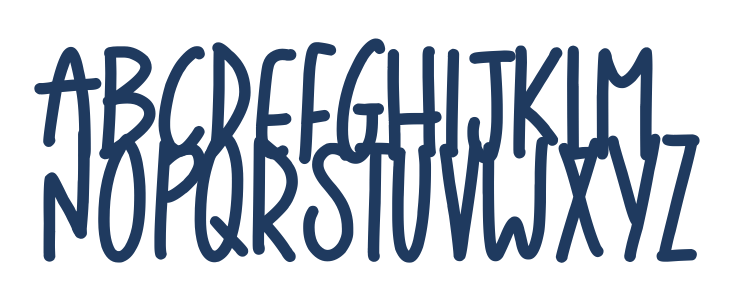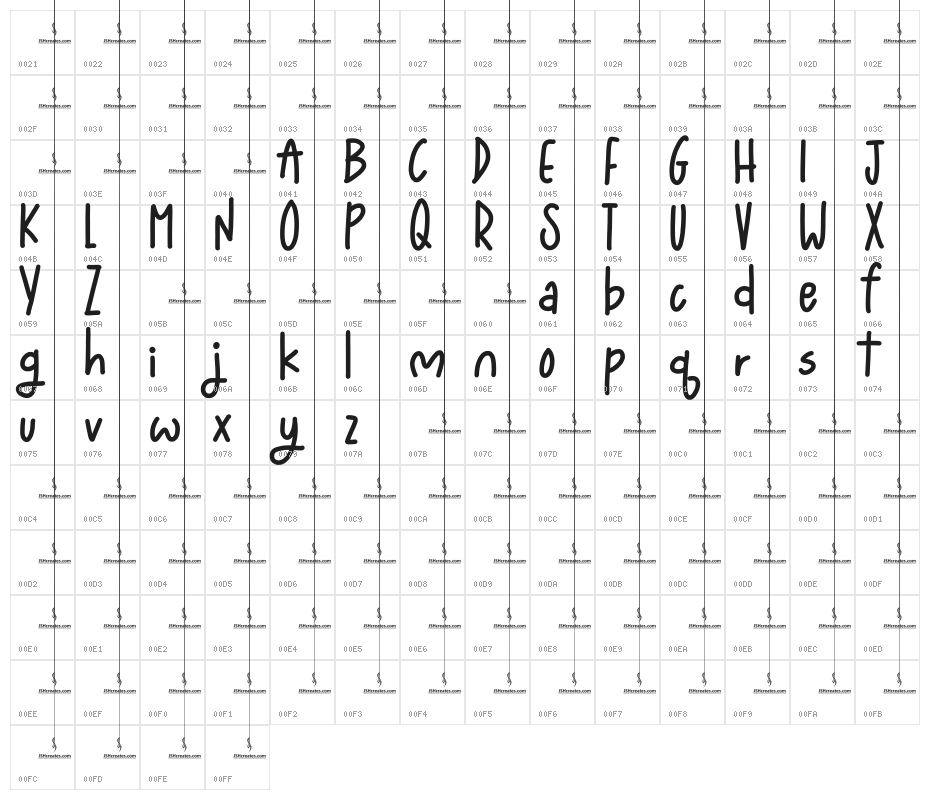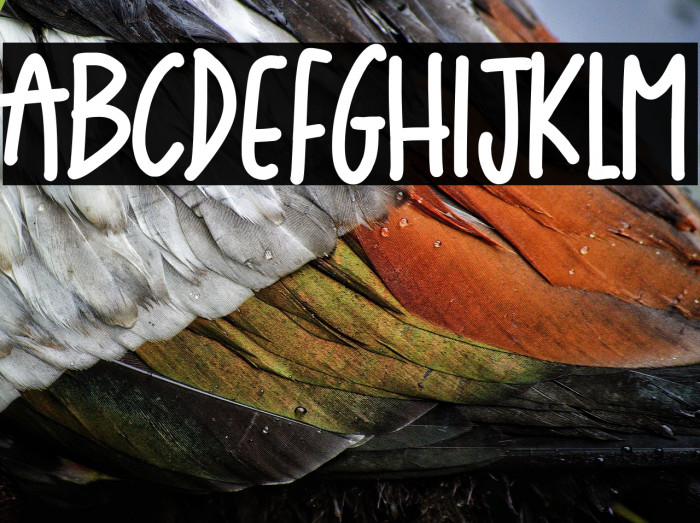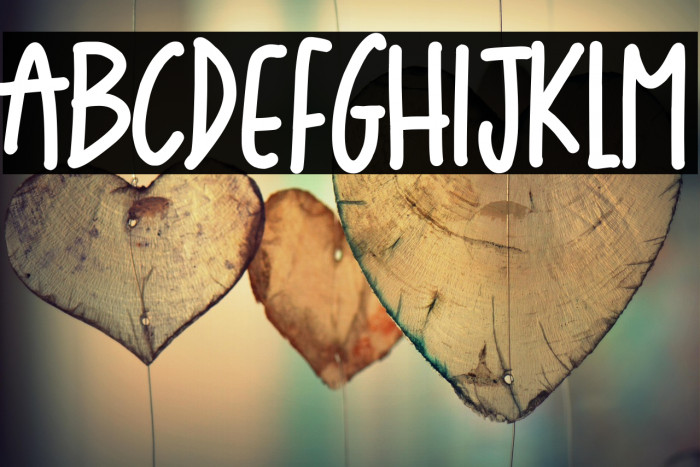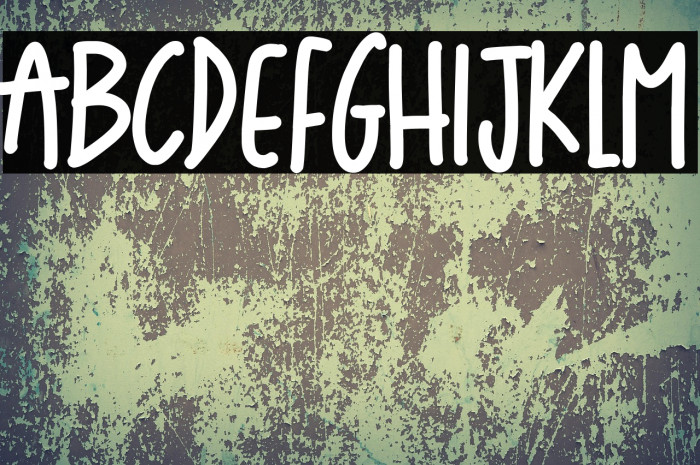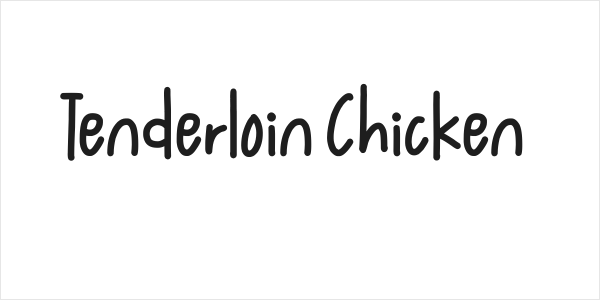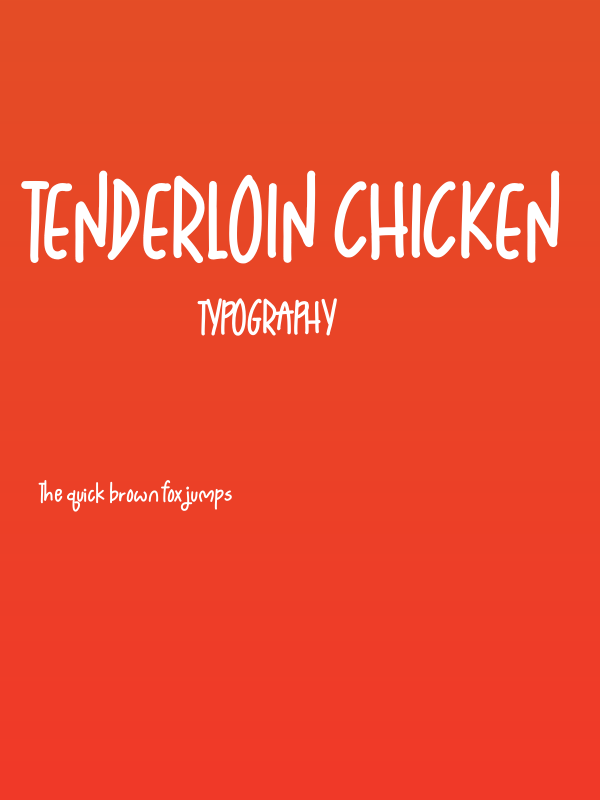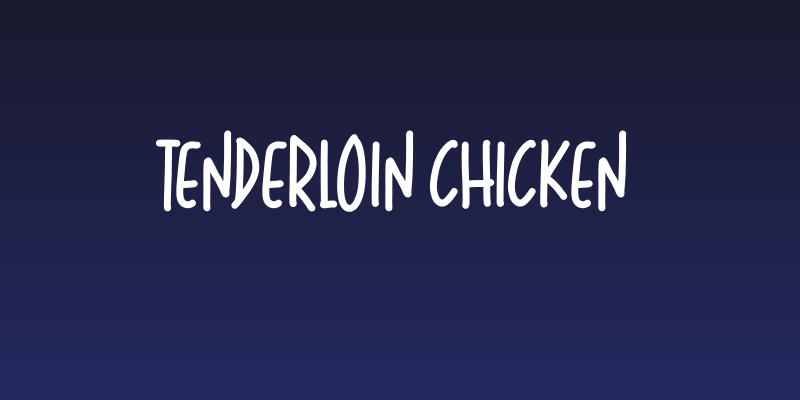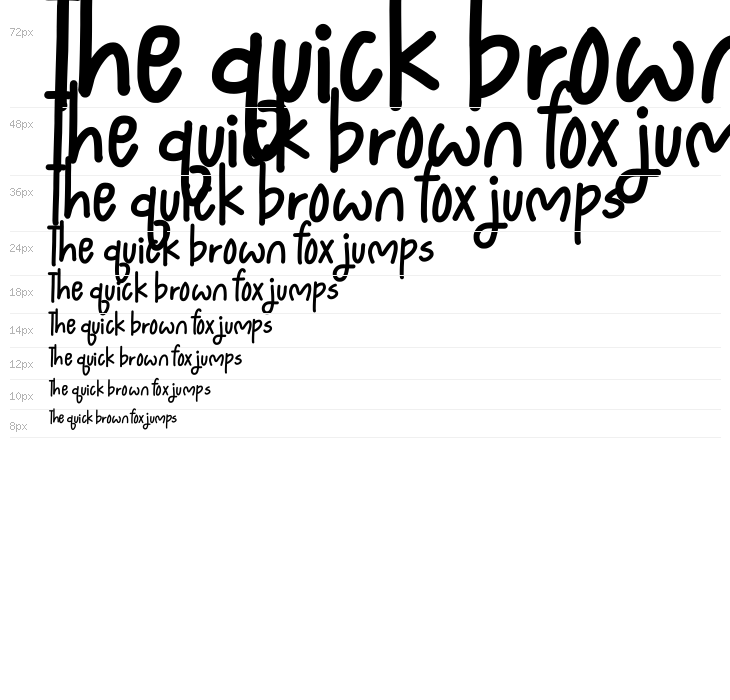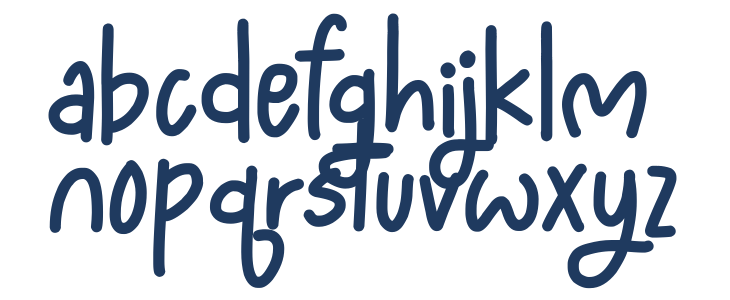
Tenderloin Chicken Font
Tenderloin Chicken Description
A playful, handwritten sans-serif font with tall, narrow letterforms and rounded terminals. The strokes are consistent in thickness, giving it a casual and approachable feel. The characters are slightly irregular, enhancing the hand-drawn aesthetic.
| Overall Style | Playful, Casual, Hand-drawn |
| Use Case | Headlines, Posters, Informal branding, Social media |
| Proposed Projects | ChildrenΓ’β¬β’s books, greeting cards, casual branding, posters, social media graphics. |